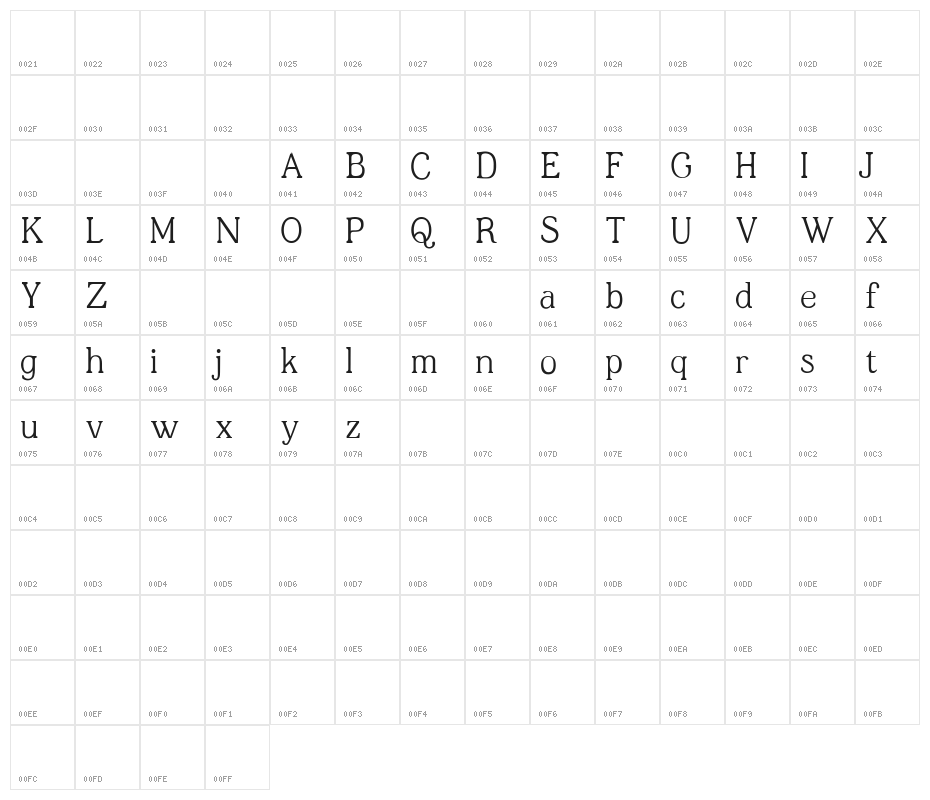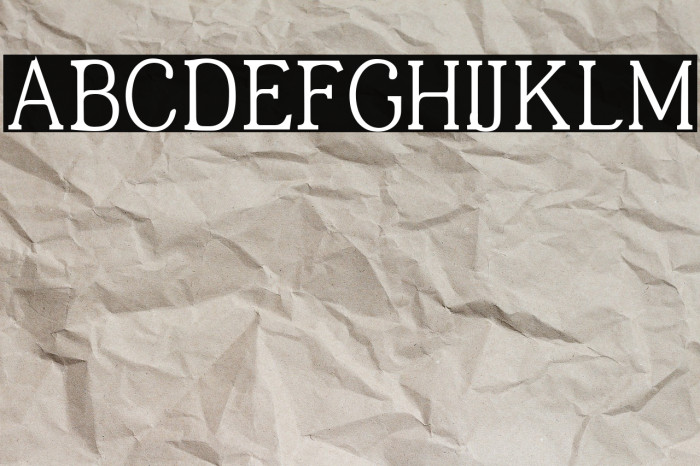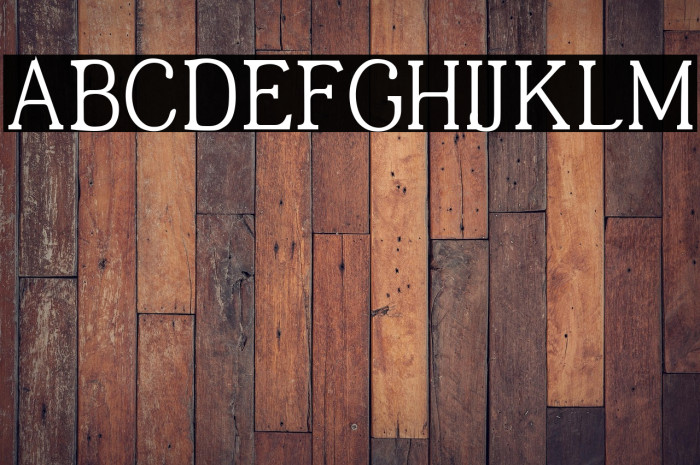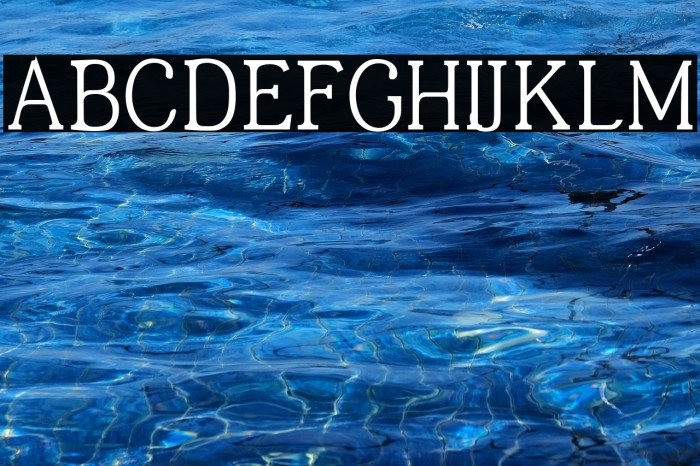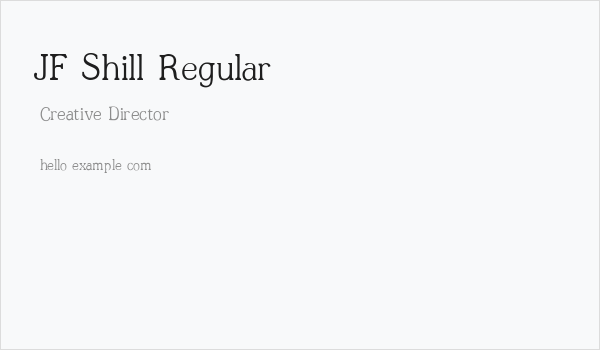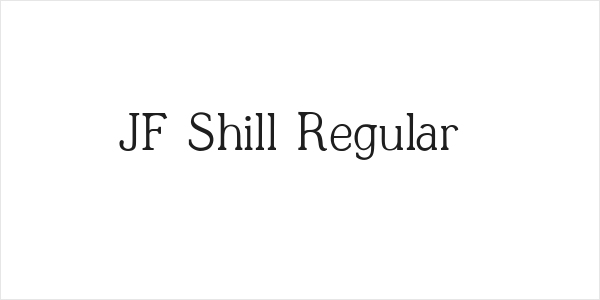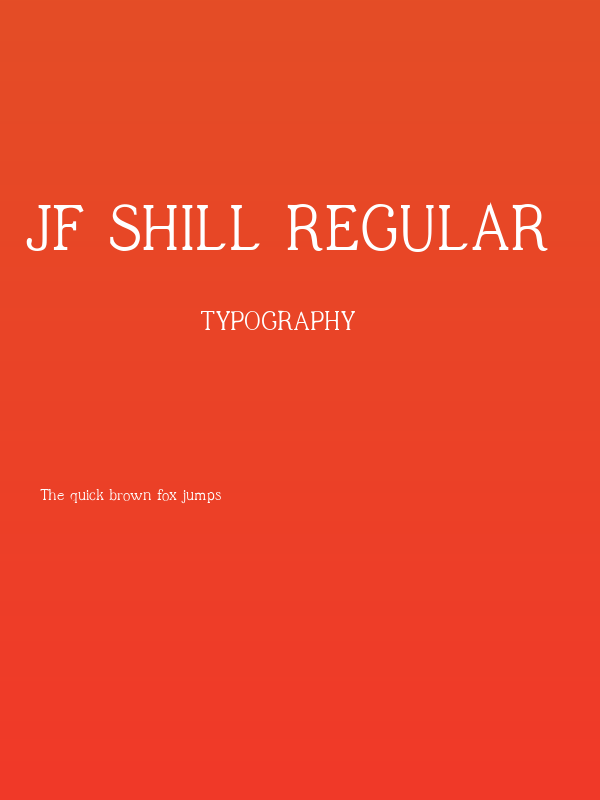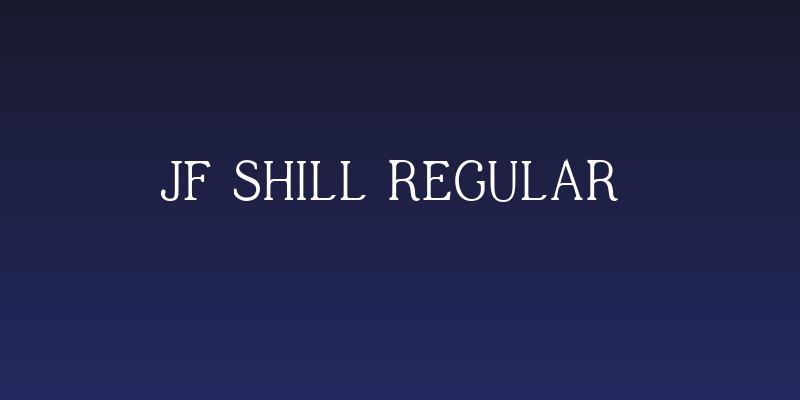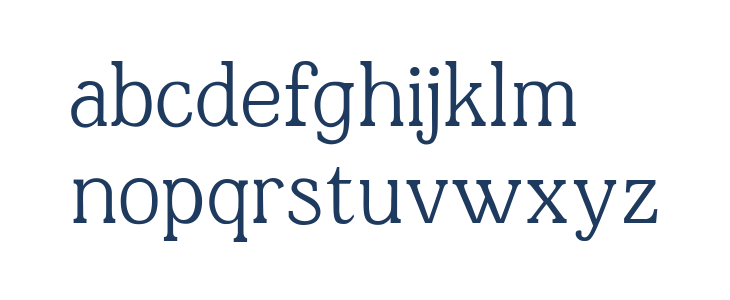
JF Shill Regular Font
JF Shill Regular Description
This font features a classic serif style with a modern twist, characterized by its clean and elegant lines. The uppercase letters are bold and prominent, while the lowercase letters maintain a consistent flow with slightly rounded edges. The numerals are well-proportioned, ensuring readability. Special characters are designed to complement the overall aesthetic, adding versatility to the font. The strokes are moderately thick, providing a medium contrast that enhances legibility without sacrificing style. This font is suitable for both digital and print media, offering a timeless appeal.
| Proposed Projects | Ideal for editorial design, branding, and formal invitations. |